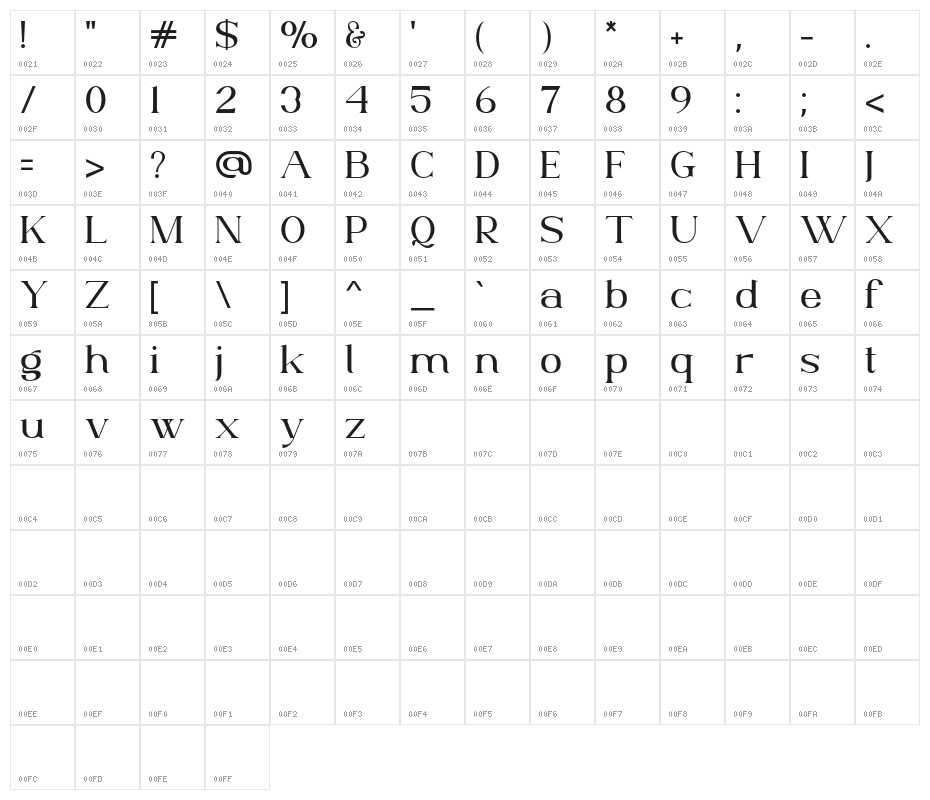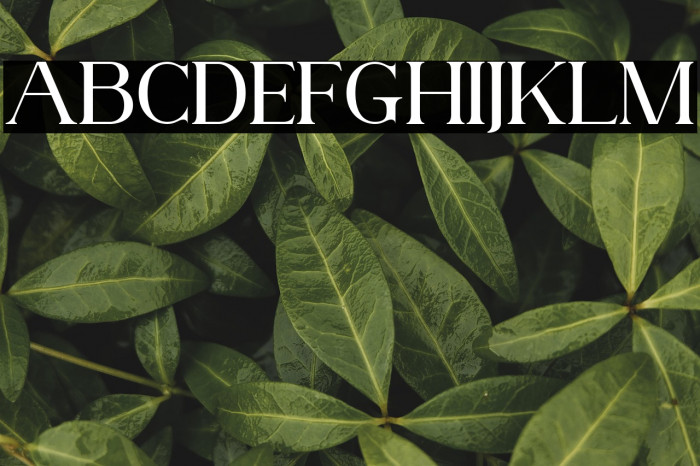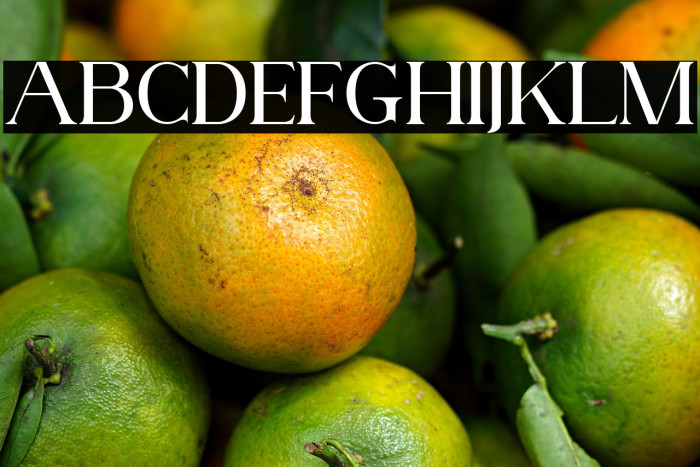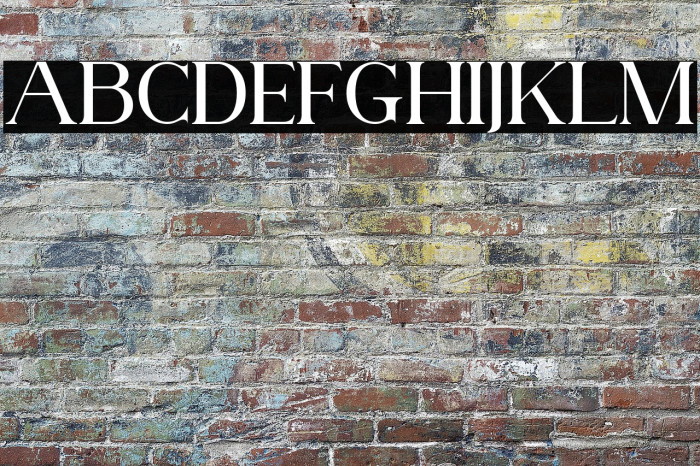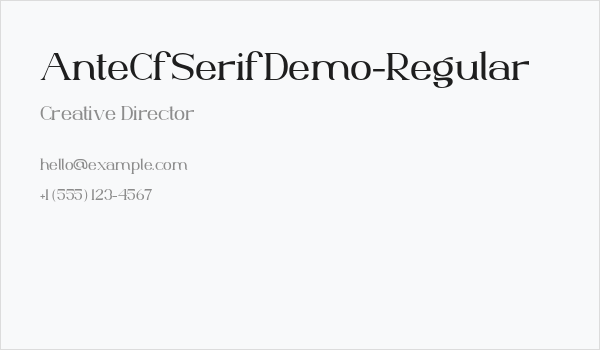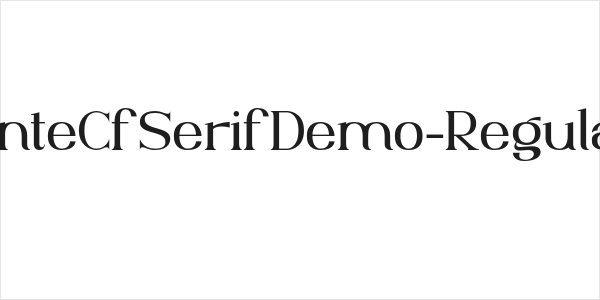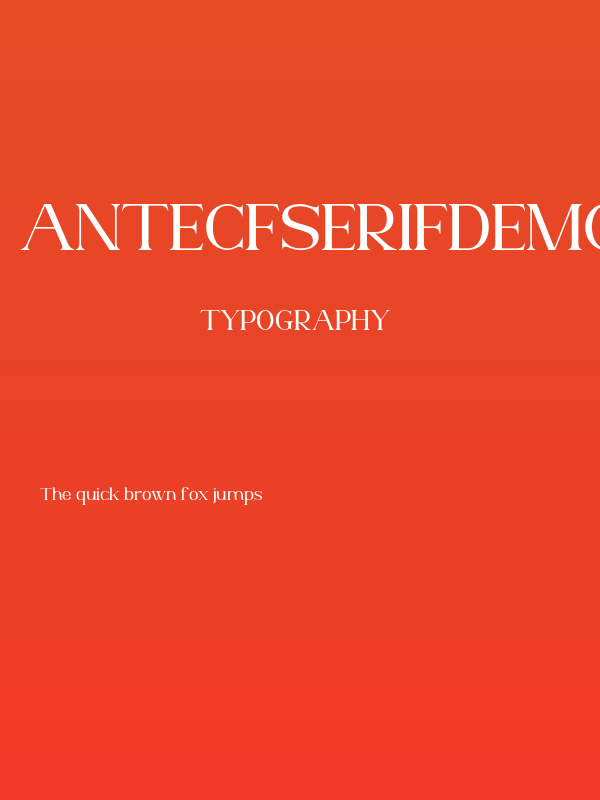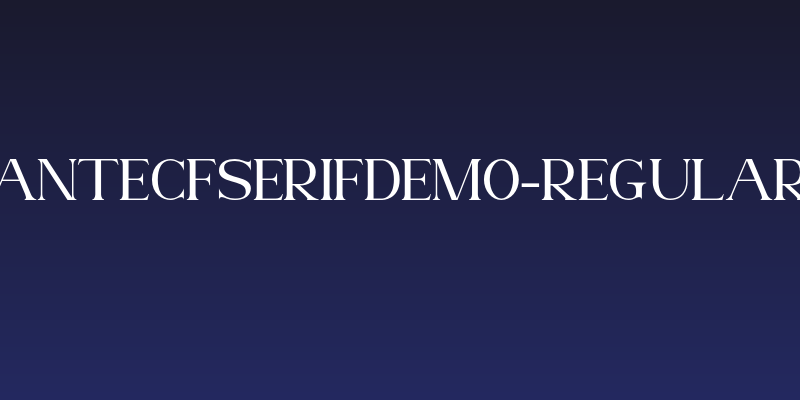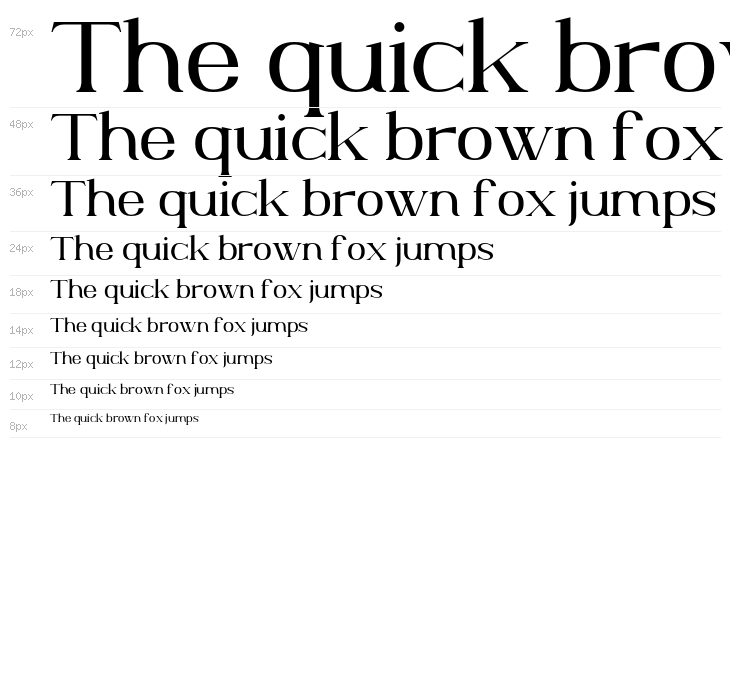
AnteCfSerifDemo-Regular Font
AnteCfSerifDemo-Regular Description
This font features a sophisticated serif style with a modern twist. The characters exhibit a high contrast between thick and thin strokes, giving it an elegant and refined appearance. The serifs are pronounced yet not overly ornate, maintaining a balance between classic and contemporary design. The uppercase letters are tall and commanding, while the lowercase letters are more rounded and approachable. The numerals are distinct and easy to read, making them suitable for a variety of applications. Special characters are well-integrated, ensuring consistency across all glyphs.